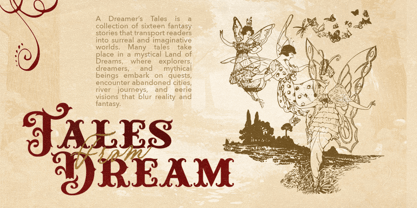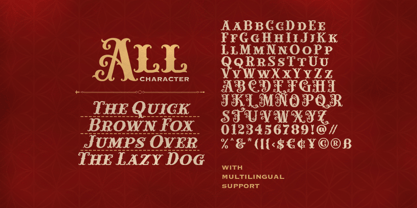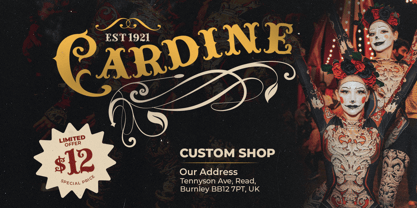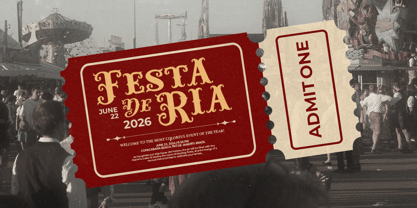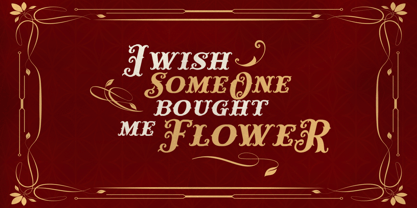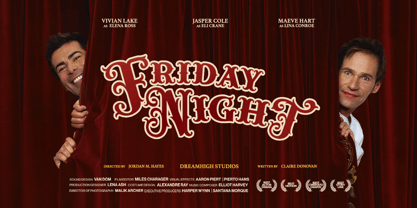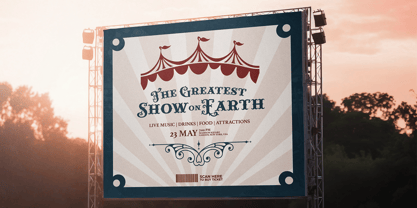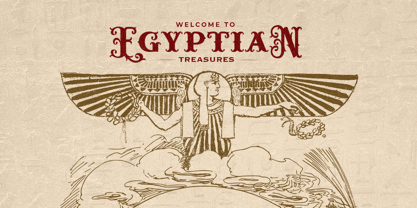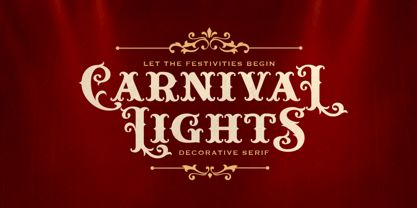
Carnival Lights
A família de fontes Carnival Lights foi desenhada por Dzikrul Aulia e publicada pela Bale Type. Carnival Lights contém 2 estilos e opções de pacote familiar. Saiba mais sobre esta família
Carnival Lights is a retro decorative serif with curly slab. This font have all caps character with different height between uppercase and lowercase. Including stylish alternates of the uppercase, you can use this font to make your project more stunning. With festive looks, Carnival Lights can be use to make logo, branding, quotes, poster, especially the project that need to looks joyful. This font also suitable for circus theme party. Carnival Lights have Italic version and support multi language.